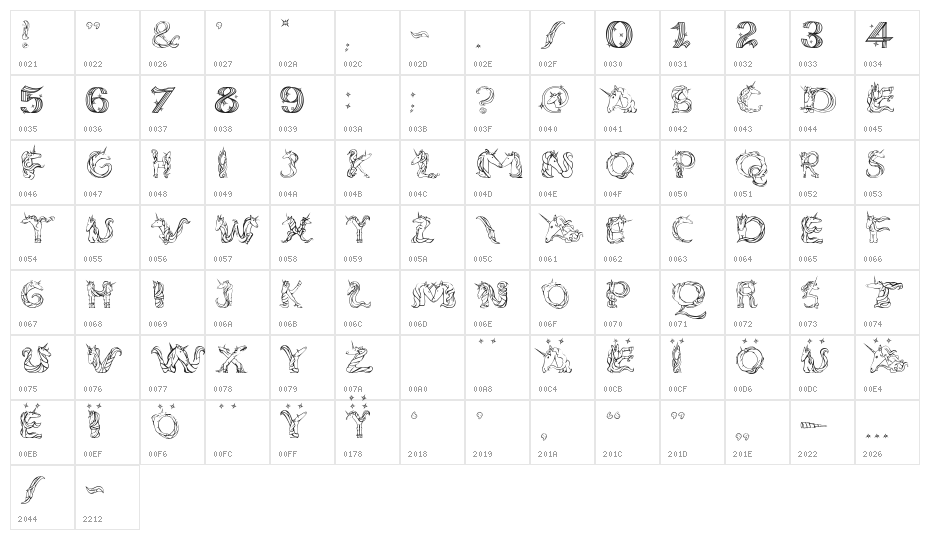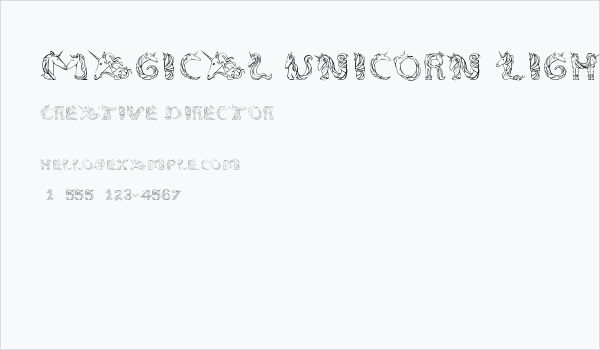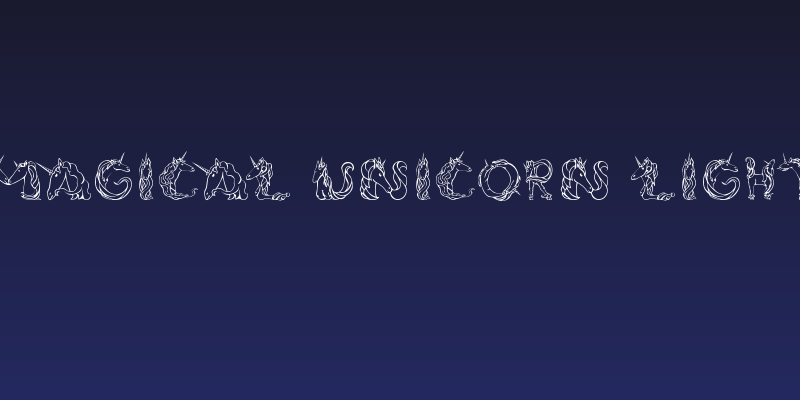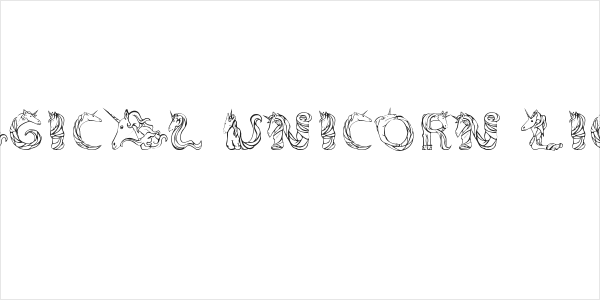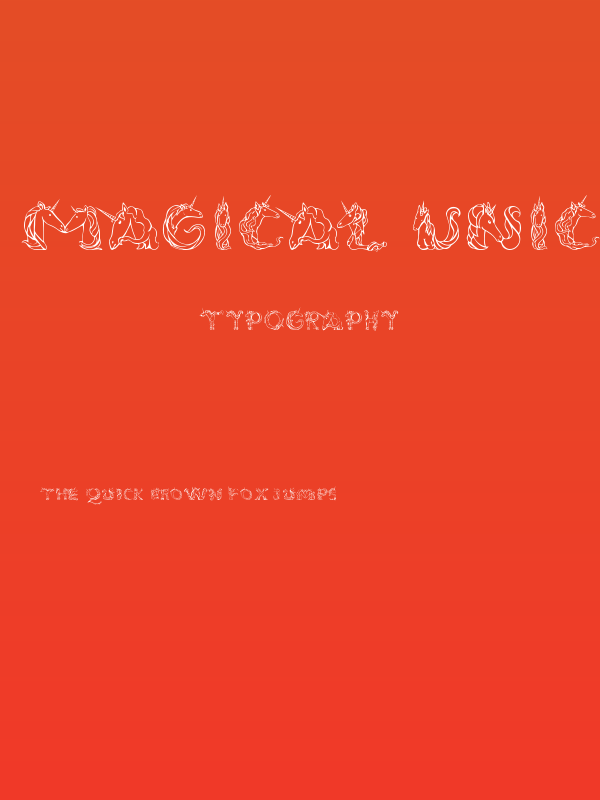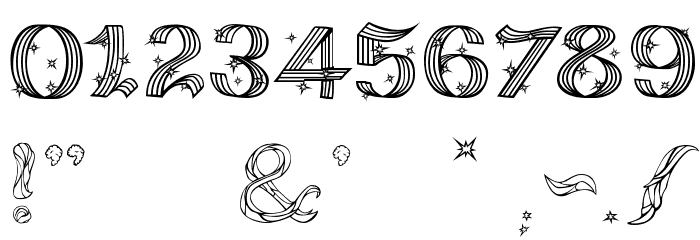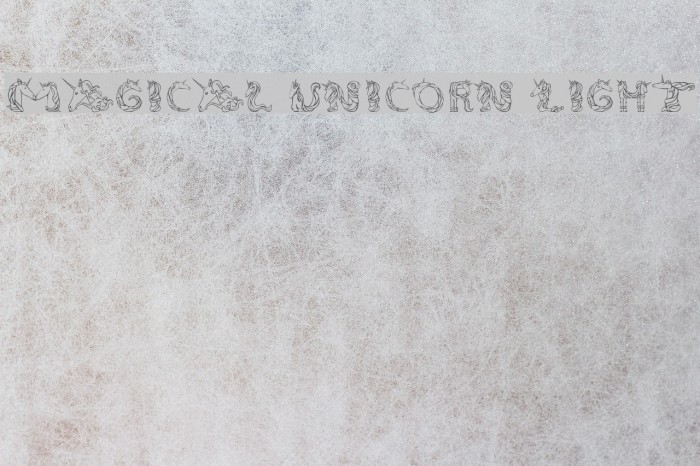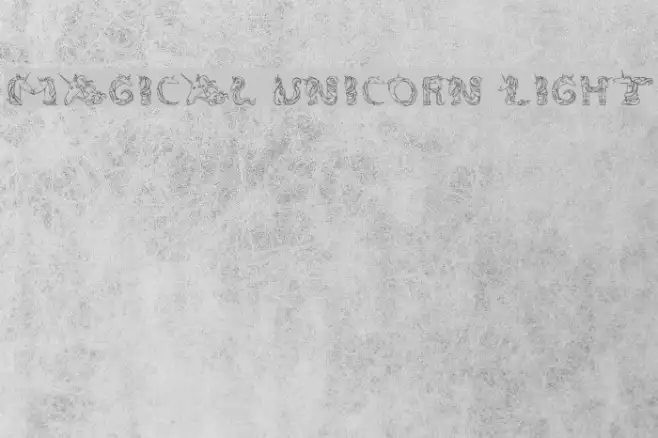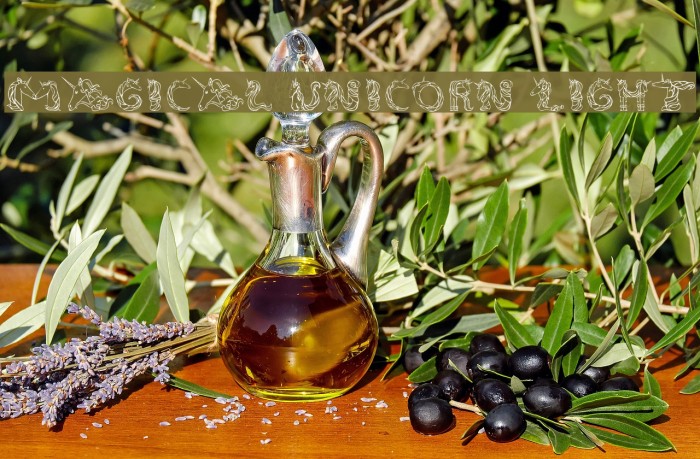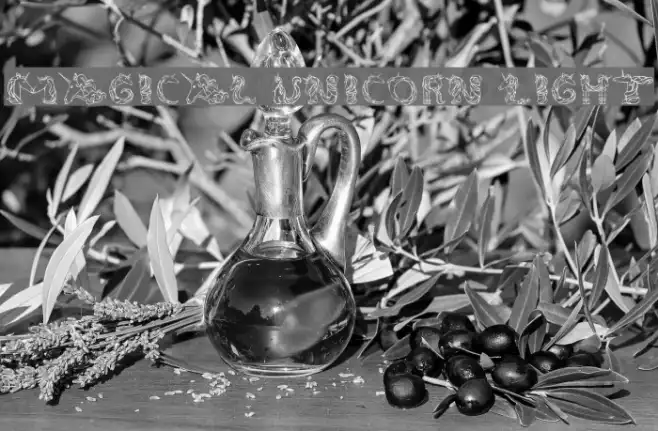
Magical Unicorn Light Font
Magical Unicorn Light Description
This whimsical and enchanting font features intricate designs that incorporate unicorn motifs and magical elements into each character. The letters are adorned with flowing manes, stars, and other fantastical details, creating a sense of wonder and fantasy. The uppercase and lowercase letters maintain a consistent theme, with each character uniquely embellished. The numbers and special characters follow the same decorative style, ensuring a cohesive look across all text. This font is perfect for projects that aim to evoke a sense of magic and imagination.
| Proposed Projects | Ideal for children's book covers, fantasy-themed invitations, magical event posters, and whimsical branding. |